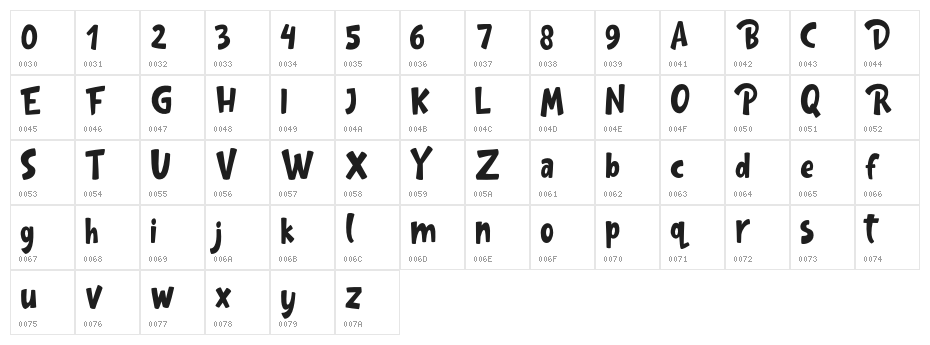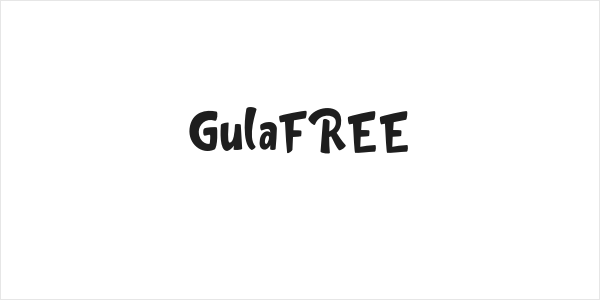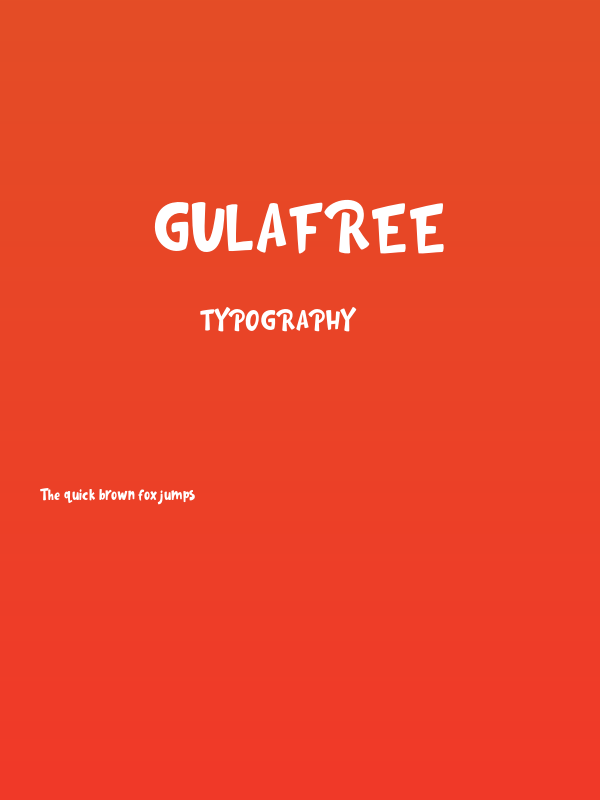
GulaFREE Font
GulaFREE Description
This playful and bold font features a whimsical, hand-drawn style with a lively and energetic appearance. The characters are slightly irregular, adding a sense of fun and spontaneity. The strokes are thick and rounded, giving the font a friendly and approachable feel. The uppercase and lowercase letters maintain a consistent style, with a slight tilt that enhances the dynamic look. The numbers and special characters follow the same playful design, making the font versatile for various creative projects. Its unique style makes it stand out, perfect for capturing attention.